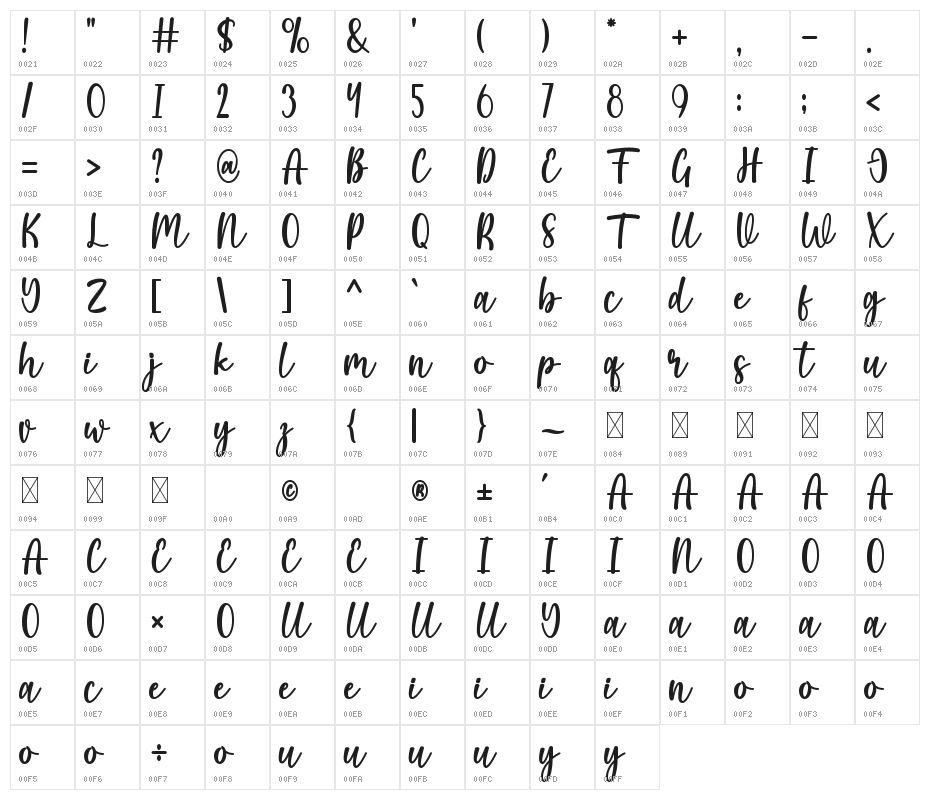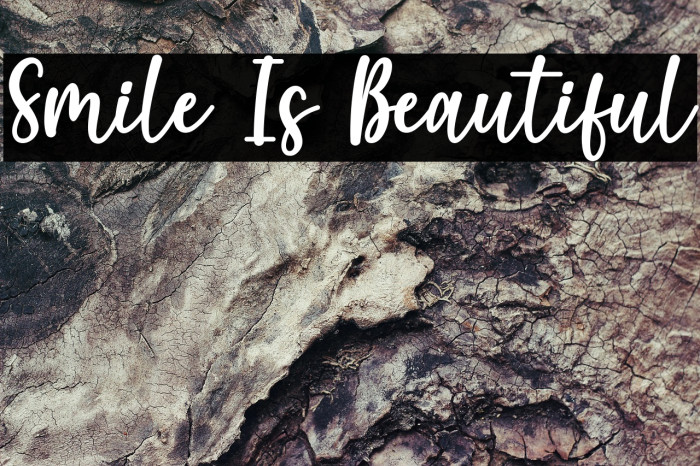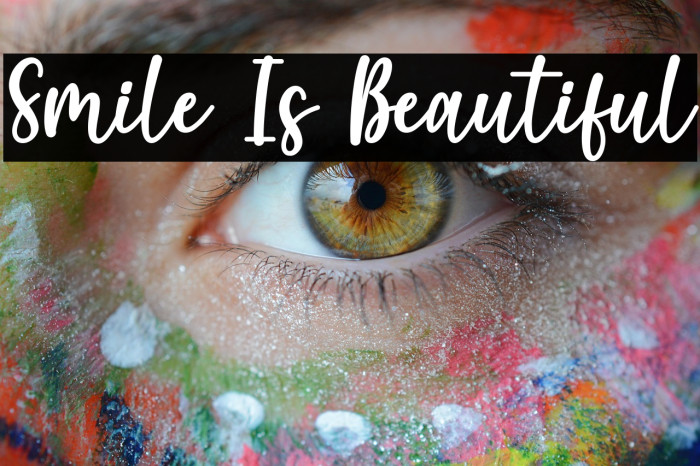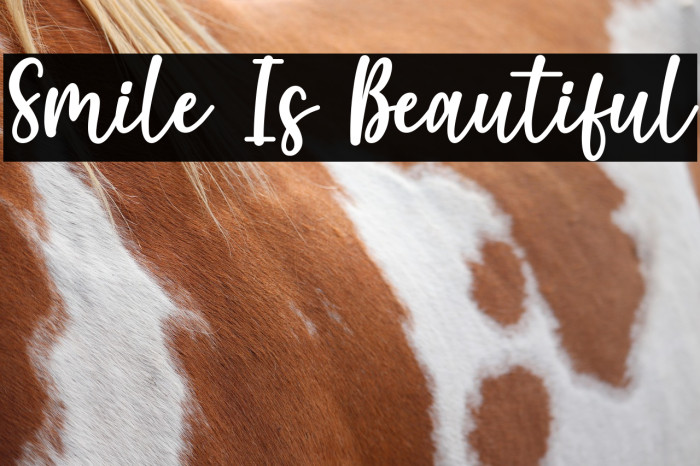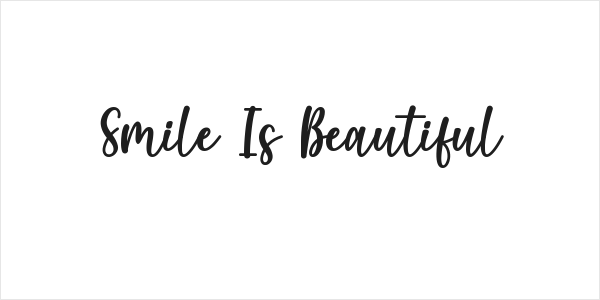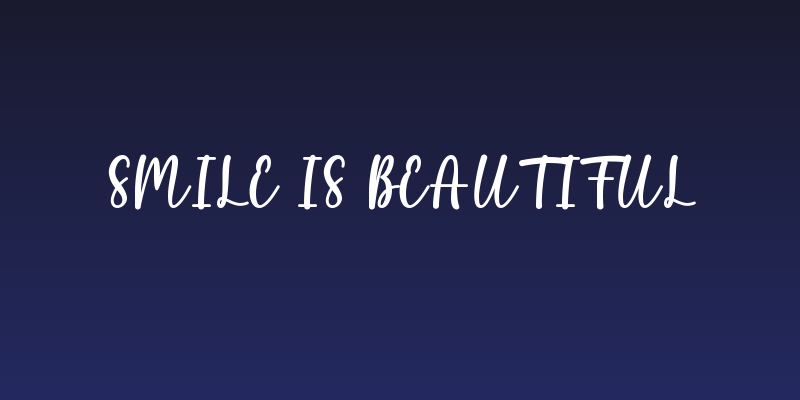
Smile Is Beautiful Font
Smile Is Beautiful Description
This font exudes a playful and energetic vibe, characterized by its handwritten style that mimics natural penmanship. The letters are fluid and connected, giving a sense of movement and spontaneity. The uppercase letters maintain a consistent height, while the lowercase letters vary slightly, adding to the casual feel. The numbers are bold and clear, ensuring readability. Special characters are creatively integrated, maintaining the overall aesthetic. This font is perfect for projects that require a personal touch, such as invitations, greeting cards, or branding materials that aim to convey warmth and approachability.
| Overall Style | Casual, Playful |
| Use Case | Headlines, Logos, Invitations |
| Proposed Projects | Ideal for invitations, greeting cards, personal branding, and creative projects. |